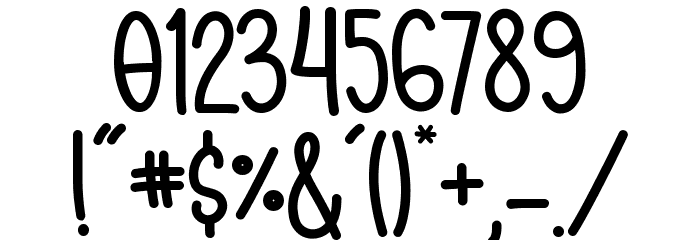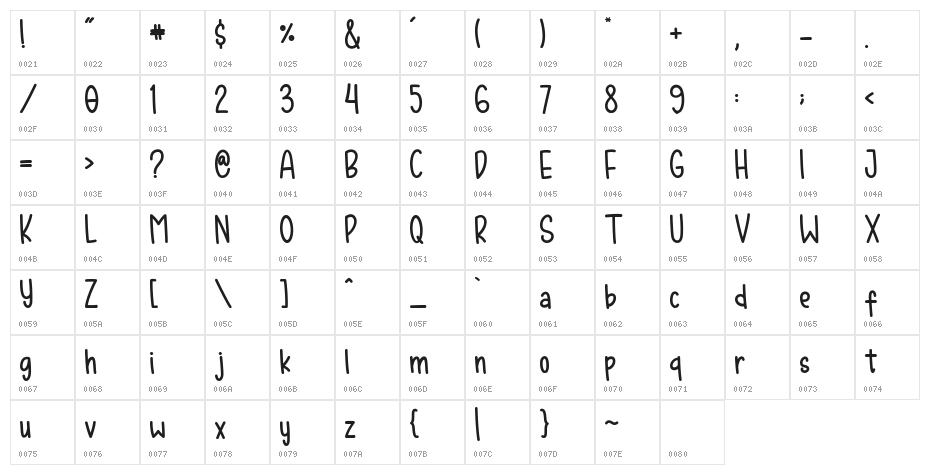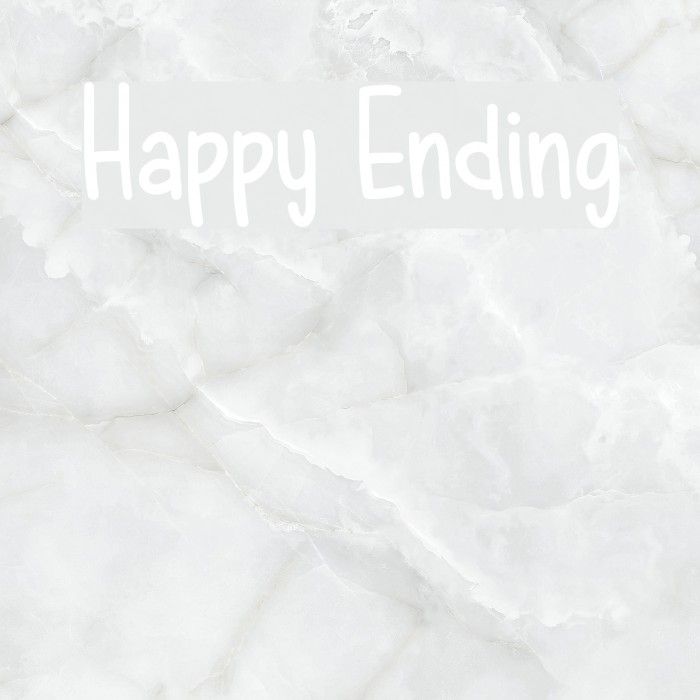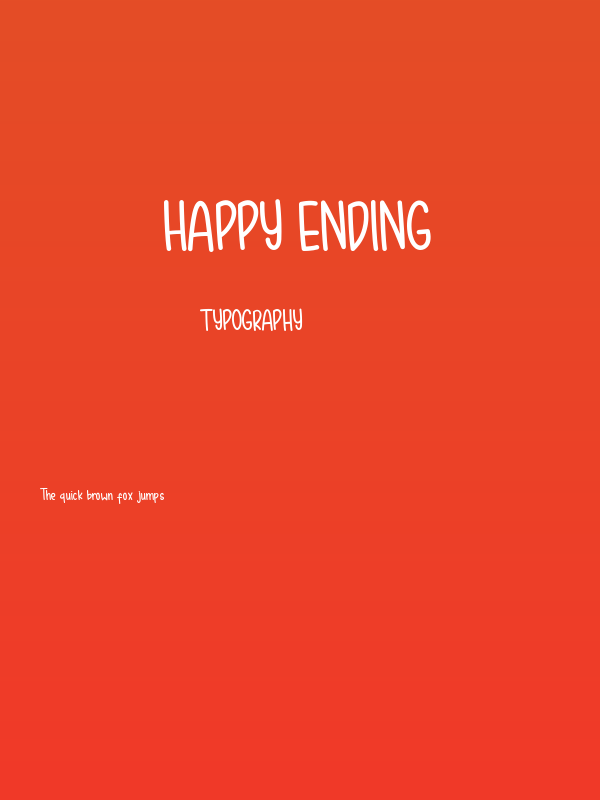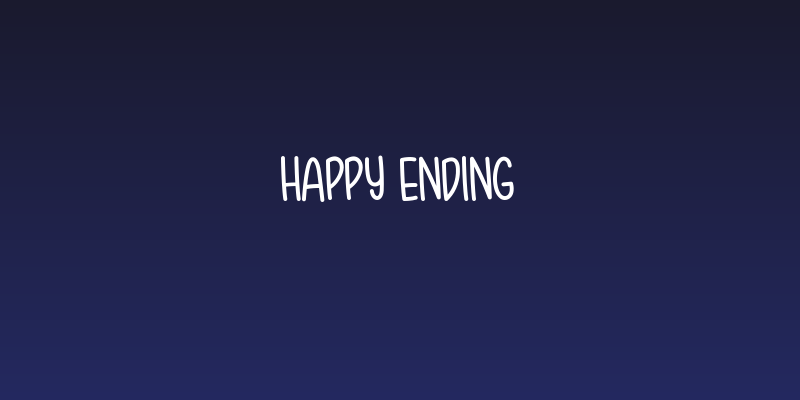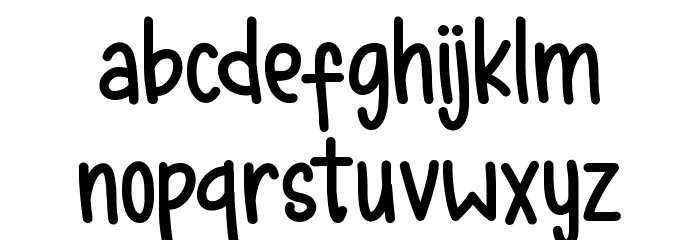
Happy Ending Font
Happy Ending Description
This playful and whimsical font features a handwritten style with a casual and friendly appearance. The letters are slightly rounded and have a consistent stroke width, giving them a smooth and approachable look. The uppercase and lowercase characters maintain a uniform height, creating a harmonious balance. The numerals and special characters are designed to match the overall style, ensuring a cohesive appearance across all text elements. This font's informal and lively nature makes it ideal for projects that require a personal touch or a fun, engaging aesthetic.
| Overall Style | Casual and playful |
| Use Case | Headlines, Logos, Informal text |
| Proposed Projects | Ideal for children's books, greeting cards, playful branding, and social media graphics. |